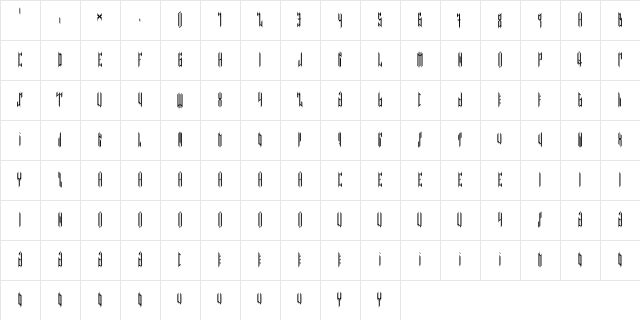
NETHER TYPE BETA 001 Regular
| Foundry | Gianluca Lonigro, Matthias Girardi |
| Designer | Gianluca Lonigro |
Design Context for NETHER TYPE BETA 001 Typeface
NETHER TYPE BETA 001 is a composed and adaptable typeface that performs quietly and consistently across a wide range of design contexts.